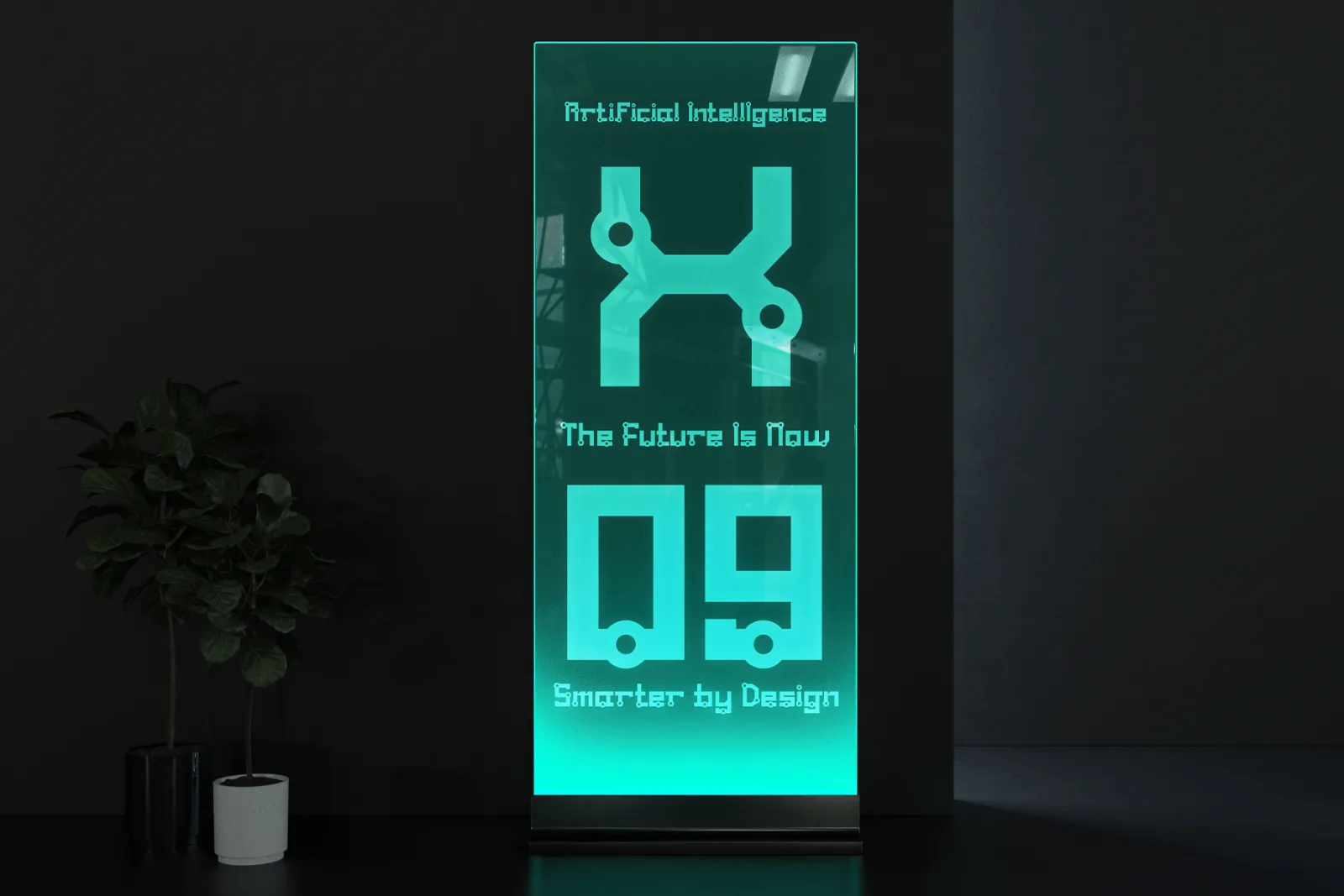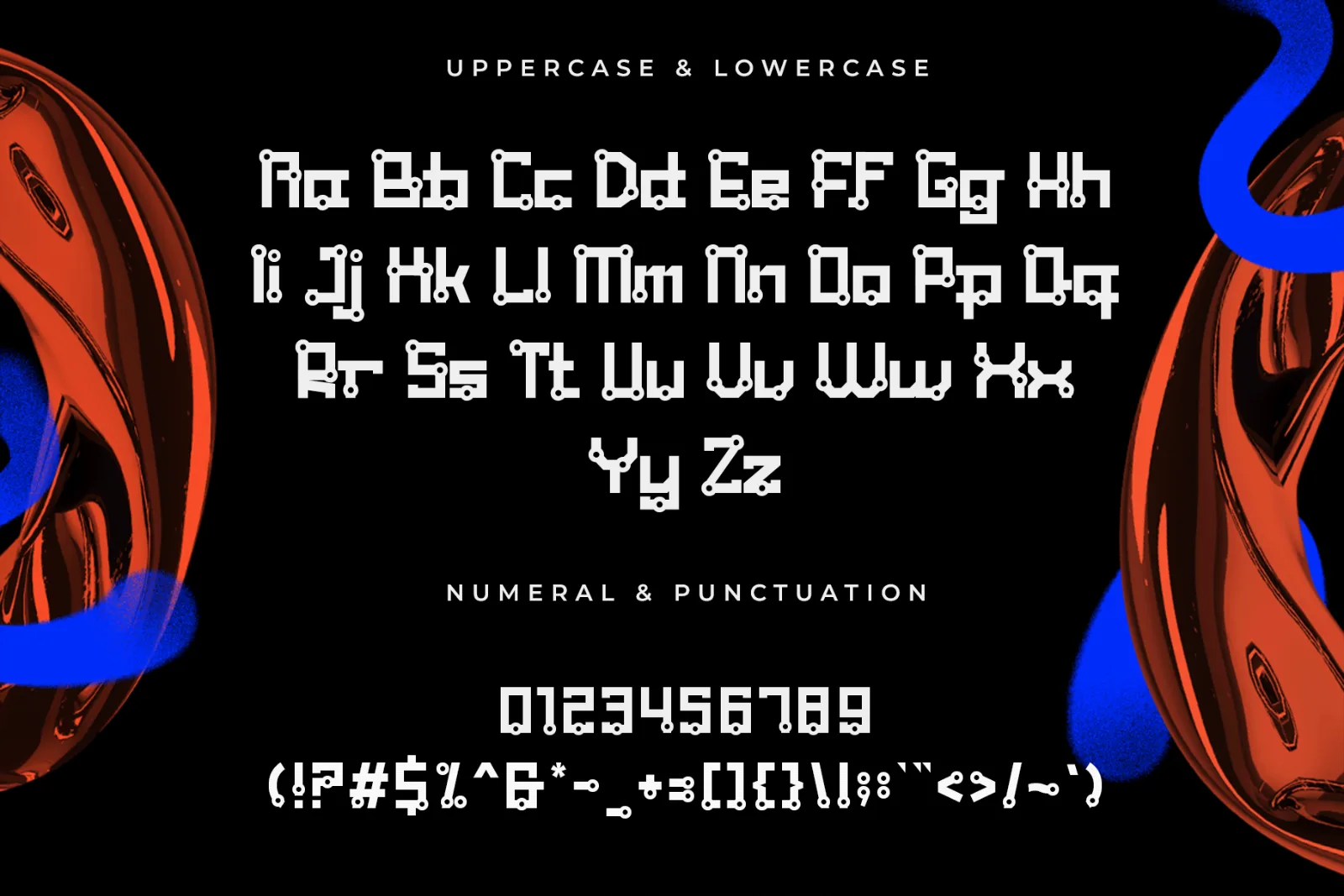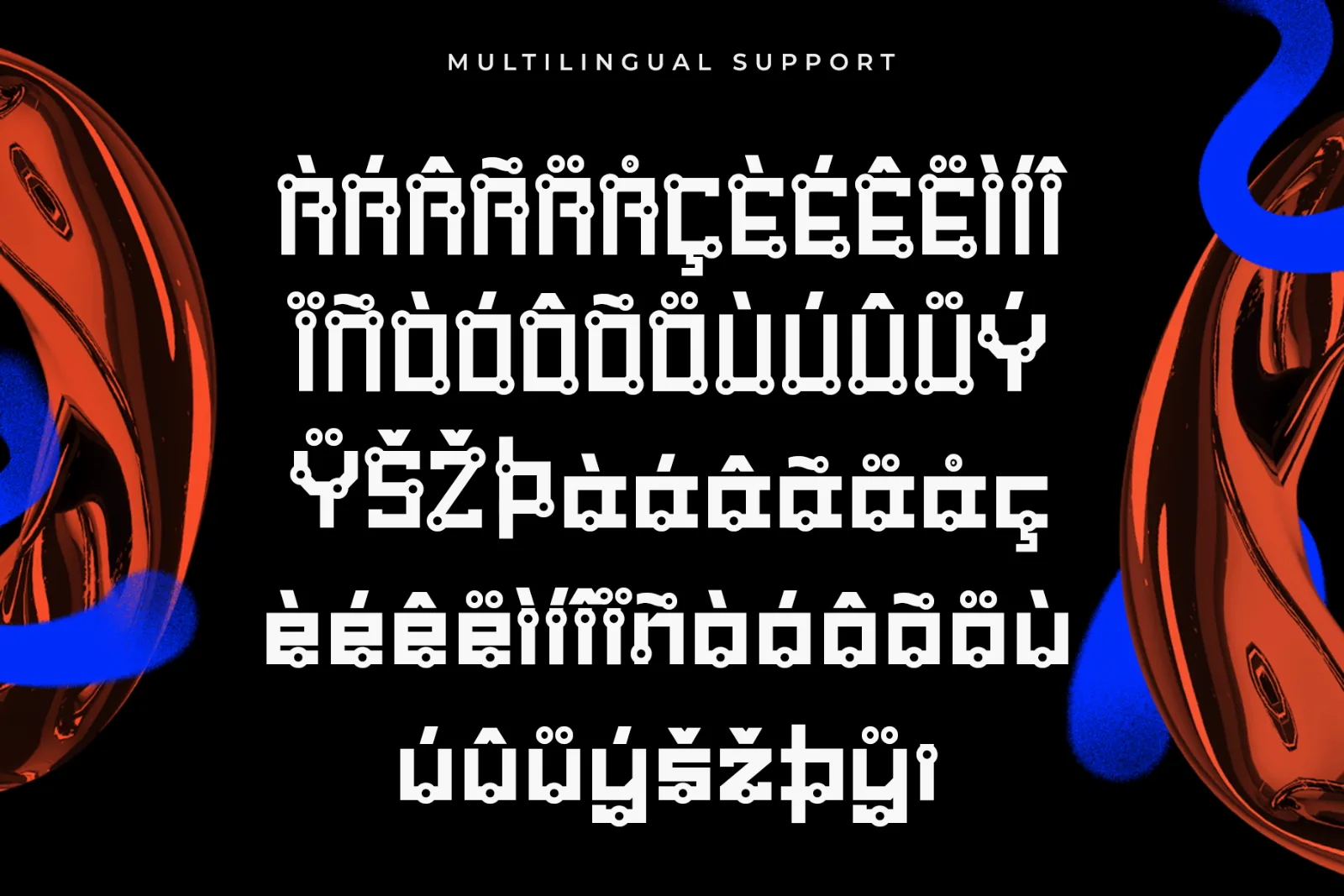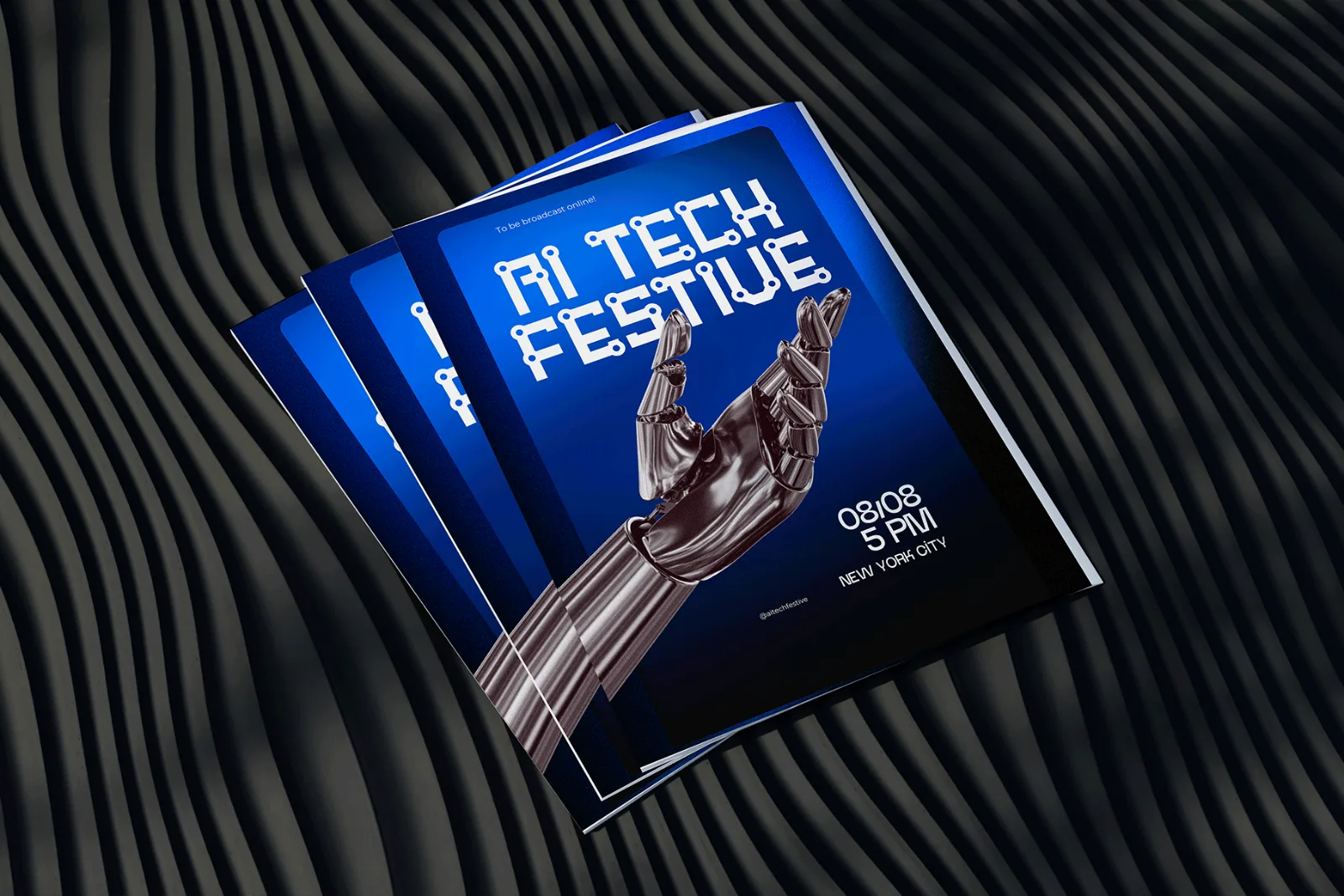
Axonic – Modern Futuristic Tech Display Font
Axonic is a modern futuristic display font built with geometric structures, circuit-inspired details, and a bold digital personality. Its distinctive letterforms create a sleek and experimental appearance that feels perfect for technology, gaming, AI-related visuals, and contemporary branding.
Designed for strong visual impact, Axonic works especially well for headlines, logos, posters, esports, software branding, sci-fi artwork, automotive graphics, and other creative projects that need a futuristic edge.
Perfect for:
- Technology Branding
- AI & Digital Graphics
- Gaming Titles
- Esports Design
- Sci-Fi Posters
- Software & App Branding
- Automotive Graphics
- Cyberpunk Artwork
- Album Covers
- Futuristic Packaging
- Website Headers
- Modern Advertising